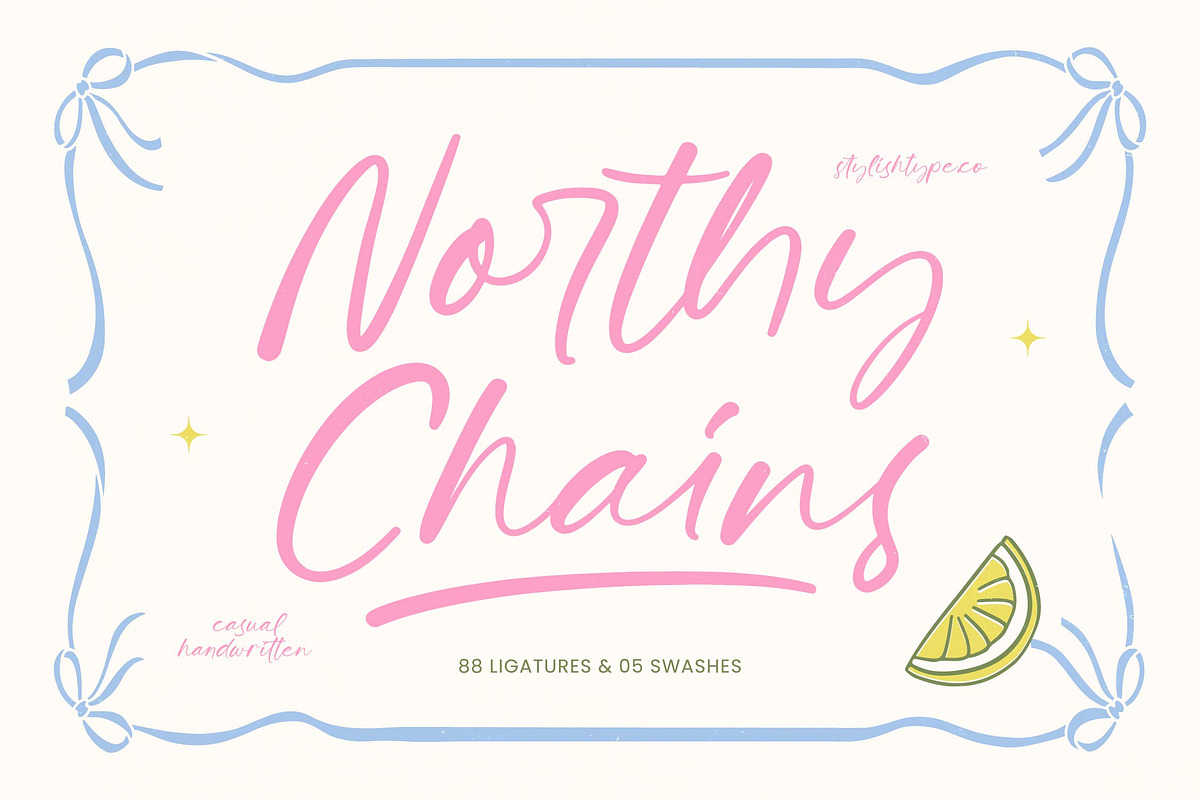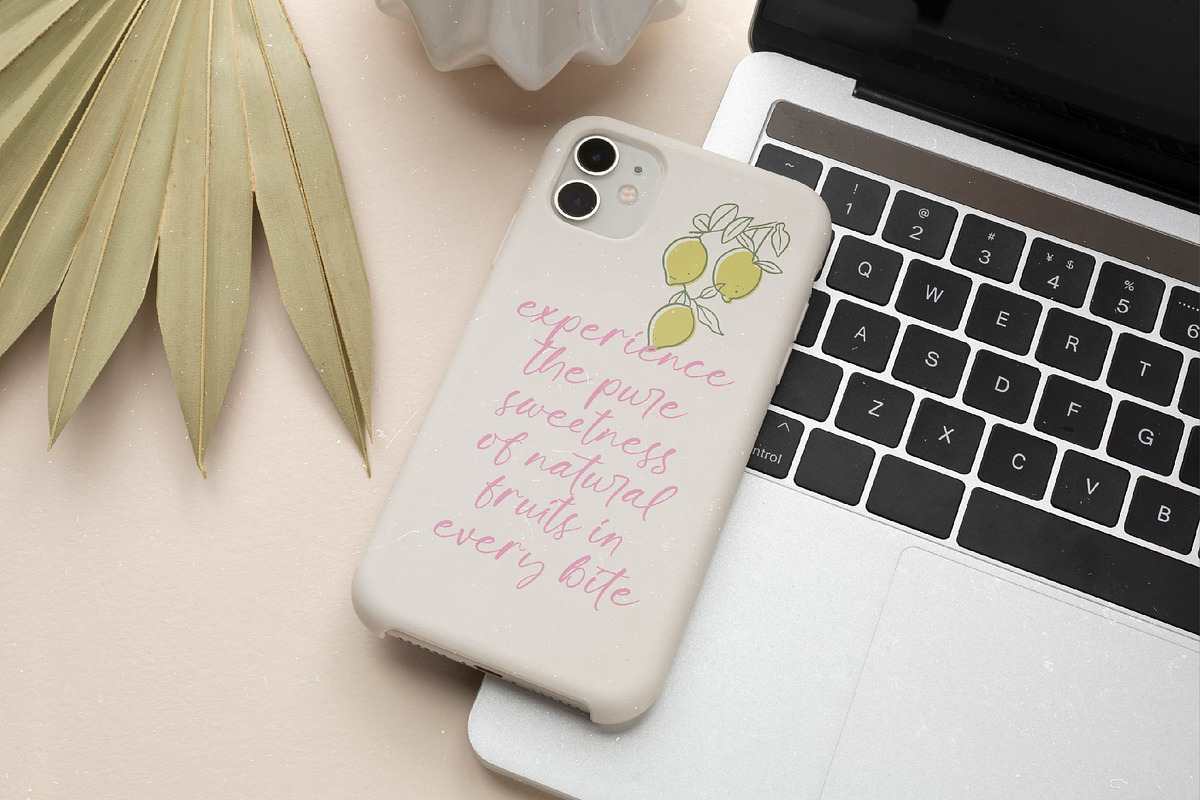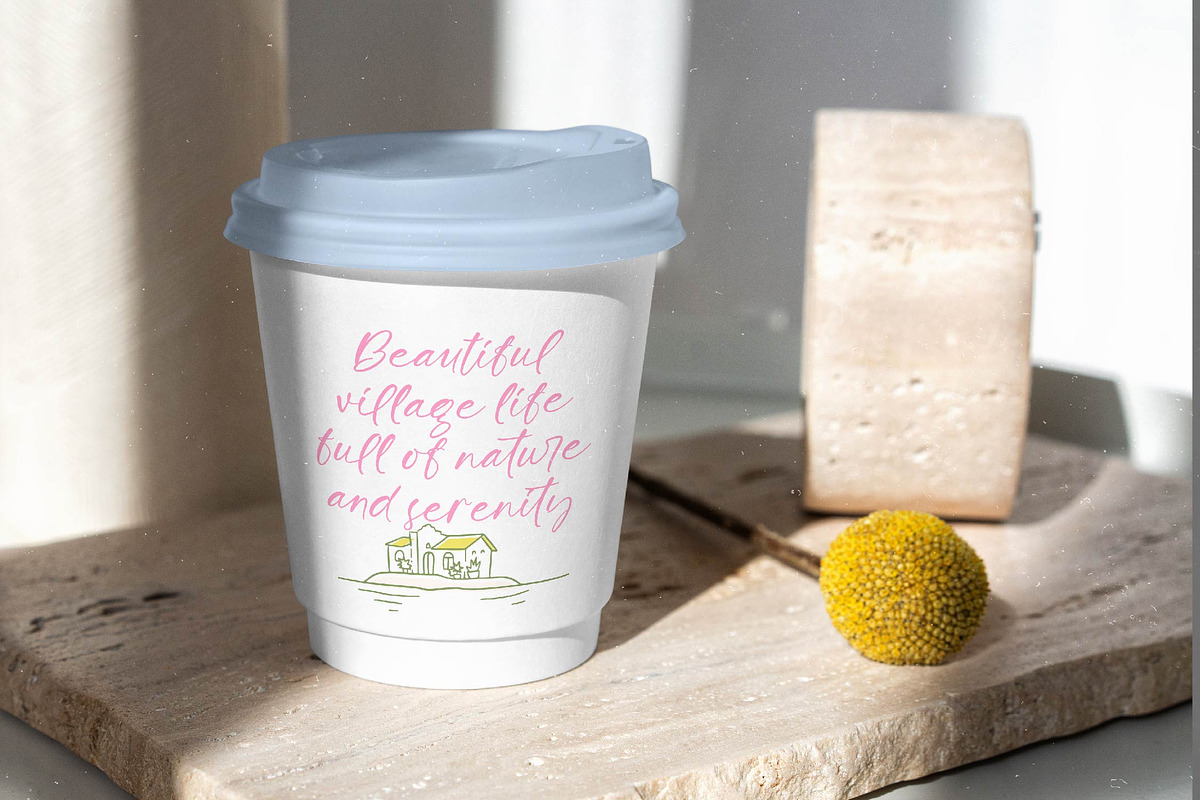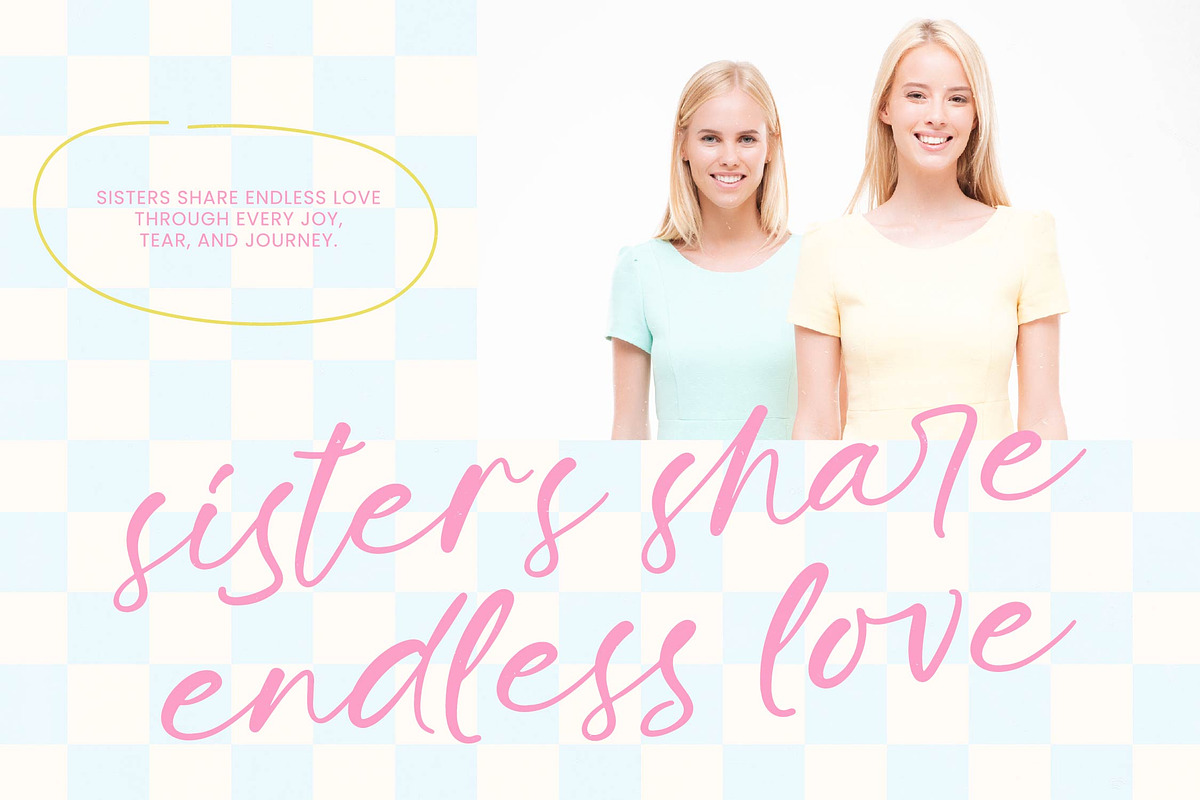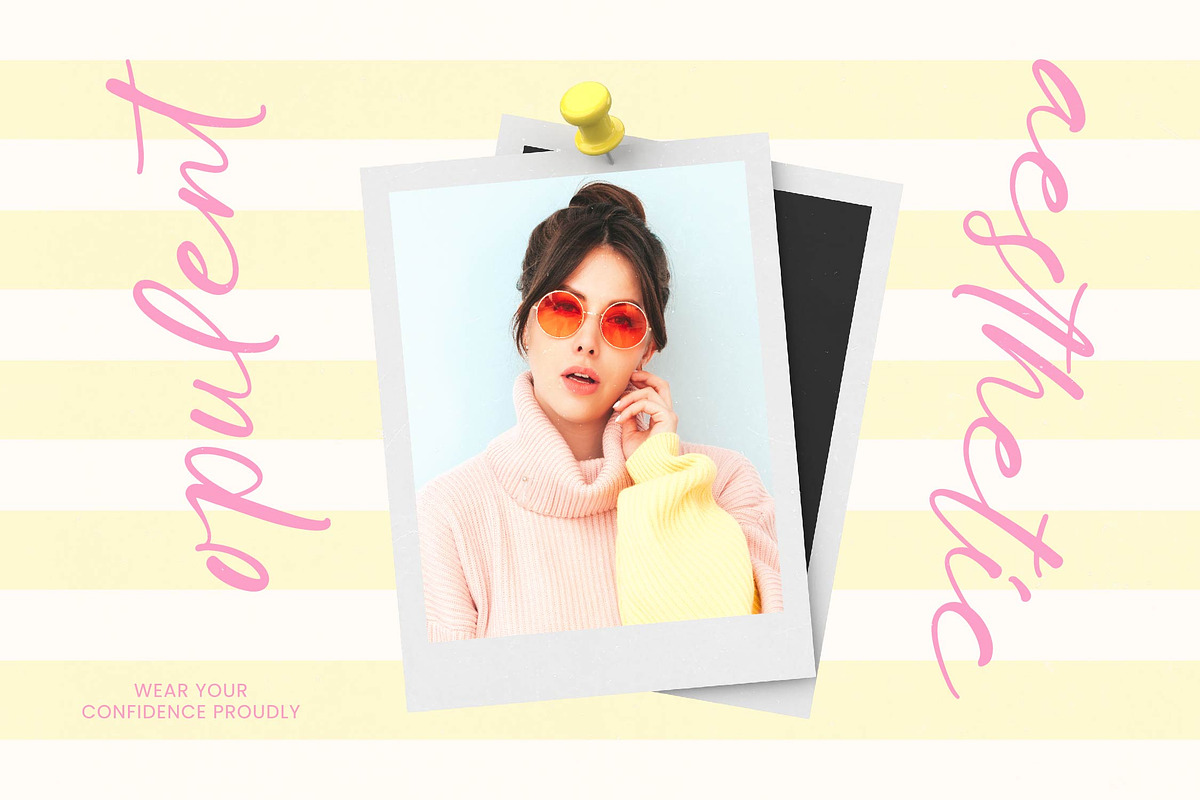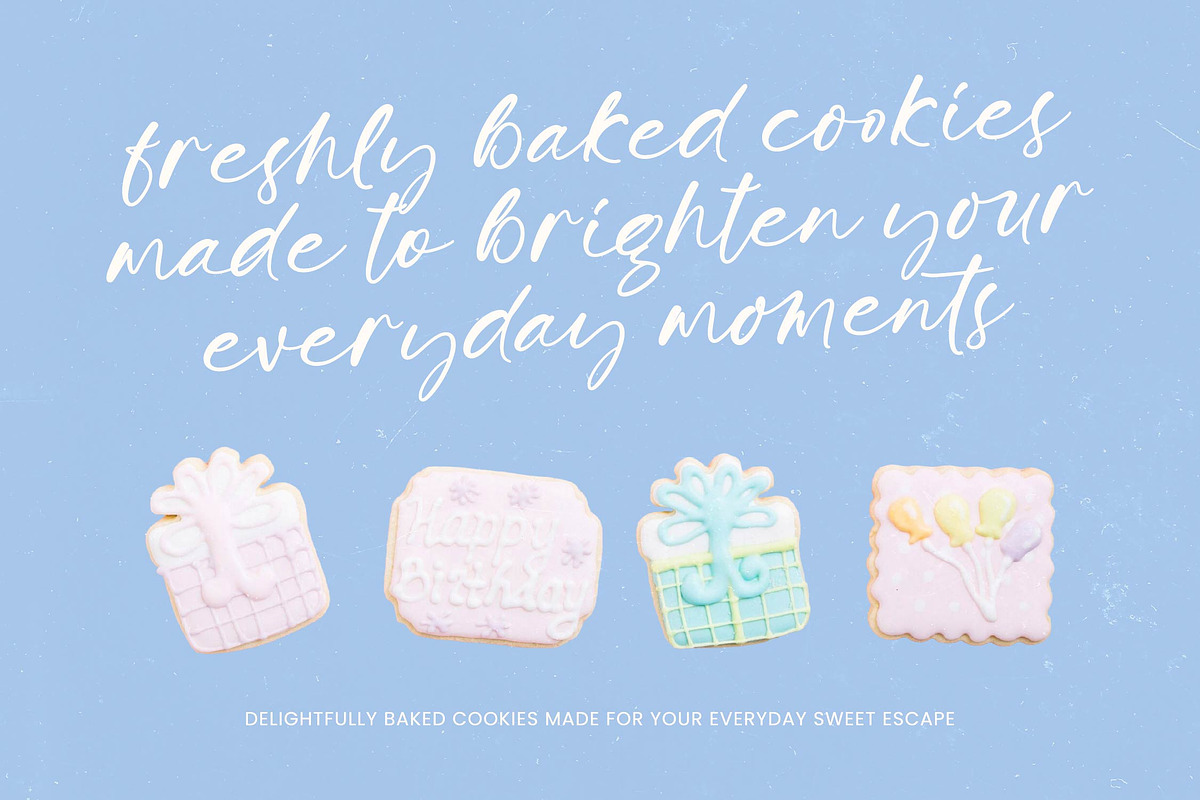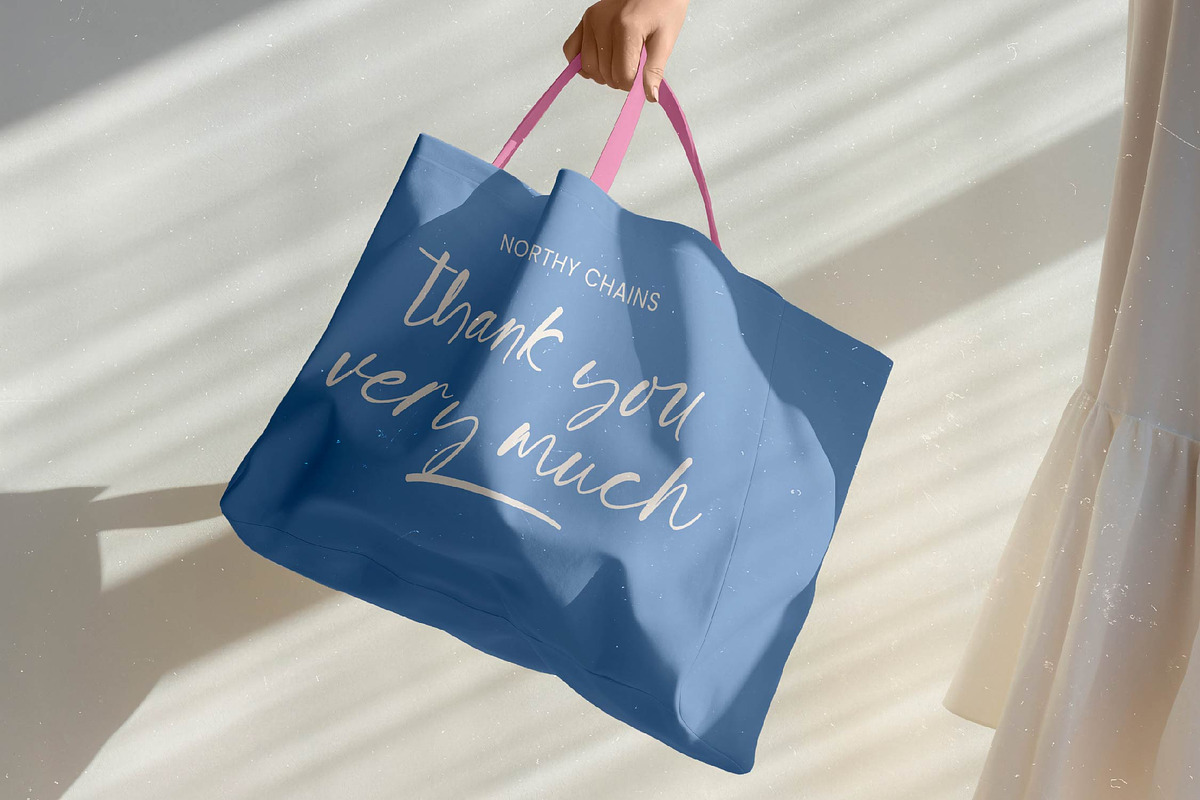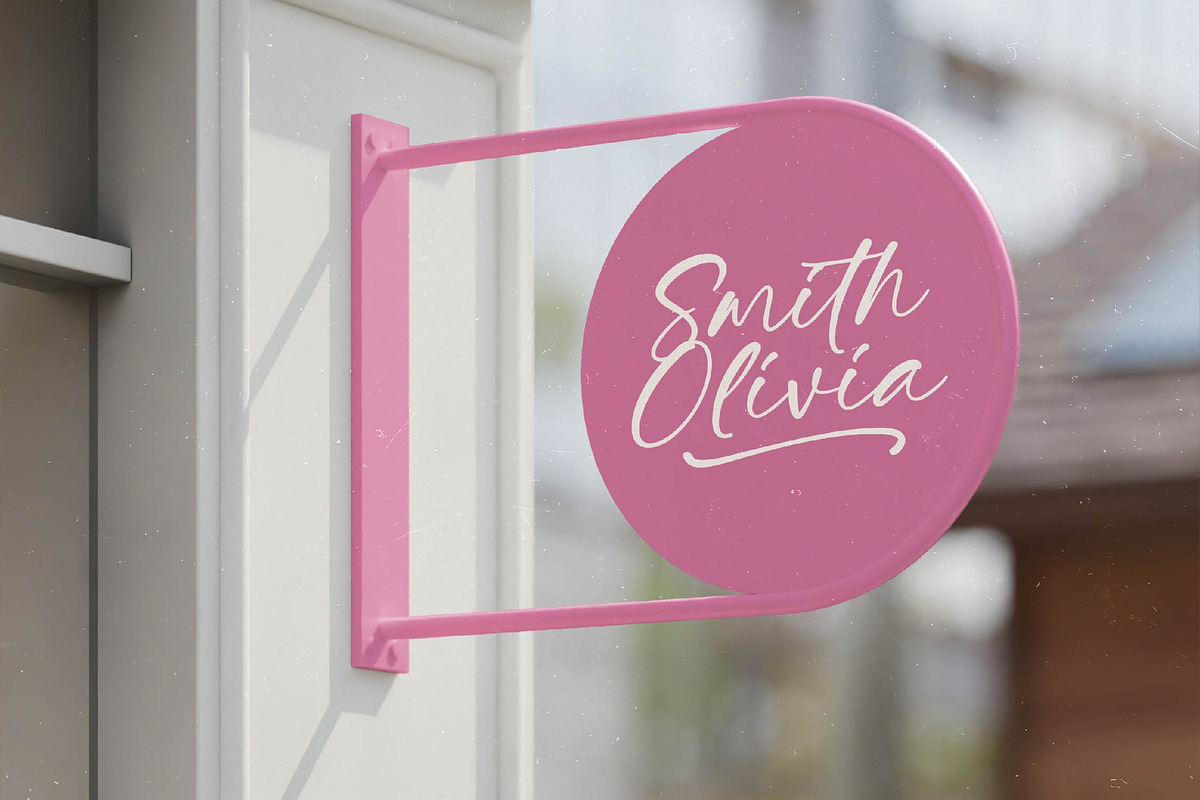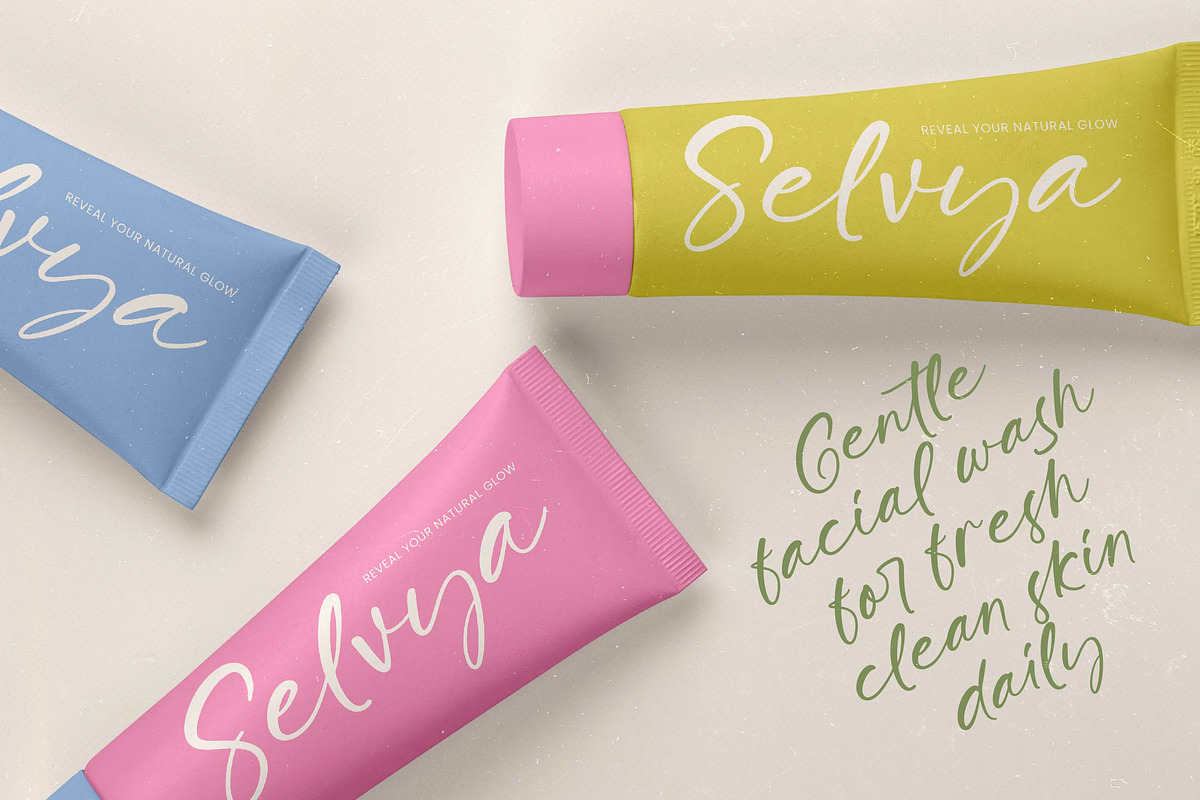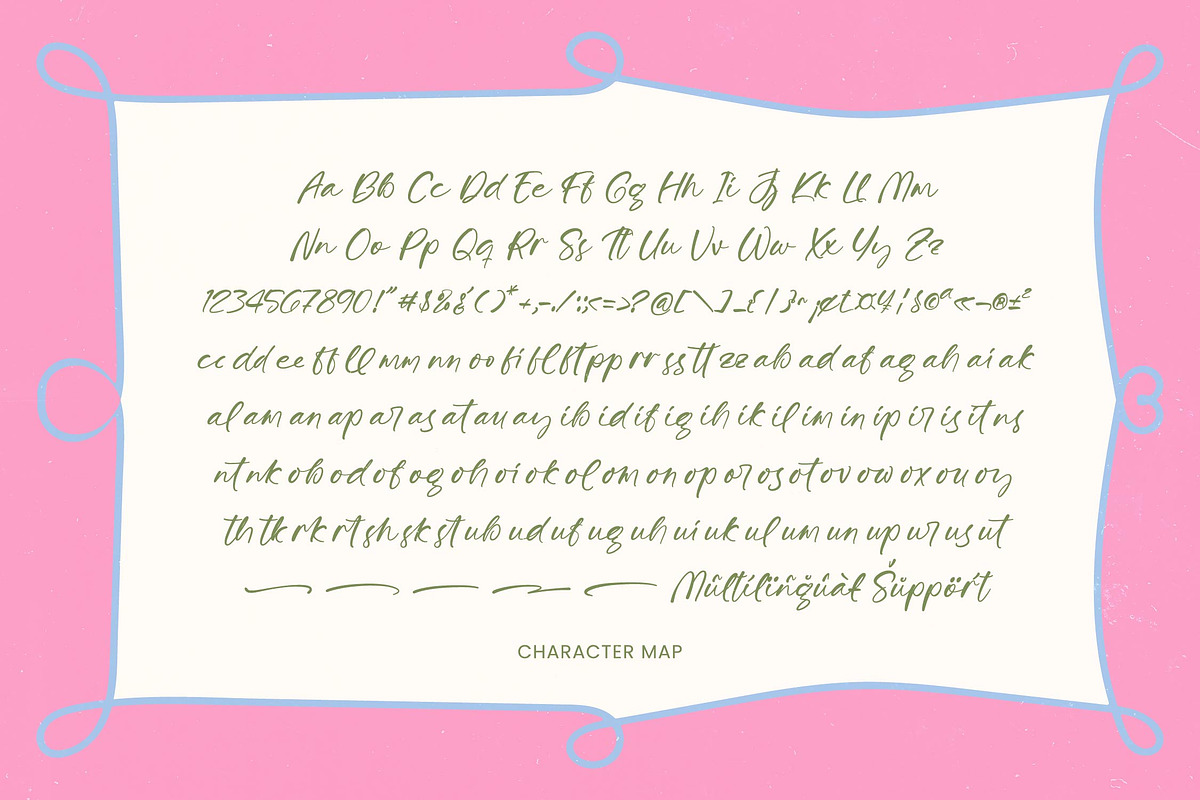
Northy Chains Casual Handwritten
Northy Chains - Casual Handwritten , Elevate your creative projects with a touch of authentic charm and refined artistry. Northy Chains - Casual Handwritten is a masterfully crafted script that captures the essence of effortless elegance. Featuring 88 ligatures and 5 unique swashes, this typeface provides an organic aesthetic that mimics natural handwriting, ensuring your designs feel personal and bespoke. Its fluid strokes and dynamic rhythm make it an ideal choice for brands looking to convey warmth and sophisticated style.
Design with purpose using a typeface that commands attention through its seamless flow and chic personality. This font is perfectly suited for luxury branding, premium packaging, and high-end editorial design. Whether you are developing boutique logos, elegant wedding stationery, or engaging social media content, Northy Chains - Casual Handwritten provides the visual impact needed to stand out. It excels in environments where a human touch is essential to establish a deep connection with the audience.
Expand your creative horizons with a font designed for a global audience and diverse linguistic needs. With its extensive multilingual support, Northy Chains - Casual Handwritten adapts seamlessly across global markets, making it incredibly versatile for international projects. This cross-cultural adaptability ensures that your brand voice remains consistent and professional, regardless of the region. As a highly versatile asset, it empowers designers to maintain a cohesive visual identity in a competitive international landscape.
Achieve a polished, bespoke finish that distinguishes your brand from the competition with every stroke. Northy Chains - Casual Handwritten balances casual sophistication with exceptional readability, offering a modern script solution for today’s fast-paced market. Investing in this premium typography allows you to deliver a message that is both approachable and luxurious. Don't settle for the ordinary; choose Northy Chains - Casual Handwritten to bring a sense of timeless beauty and contemporary flair to your next masterpiece.